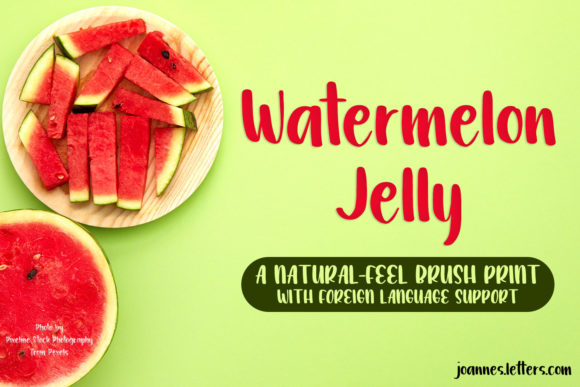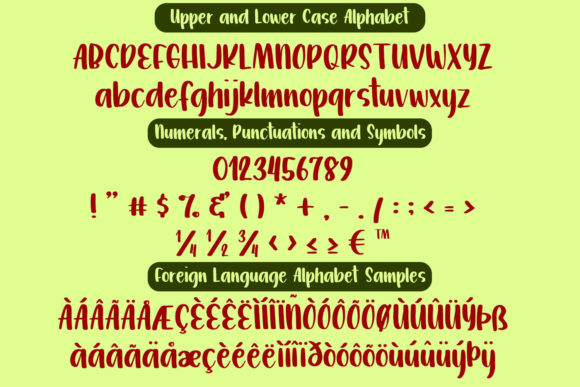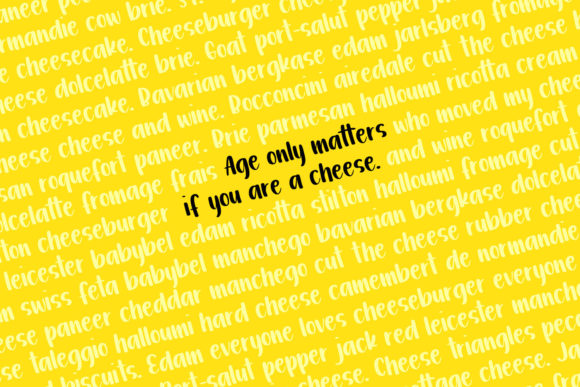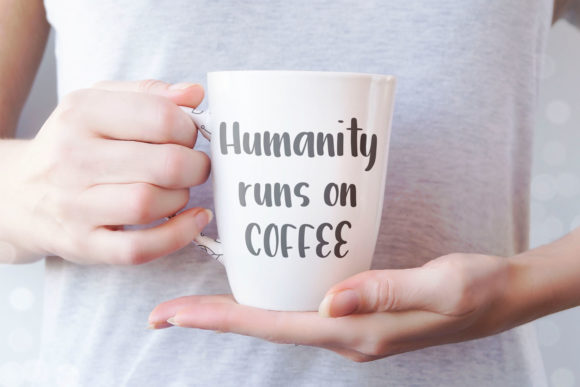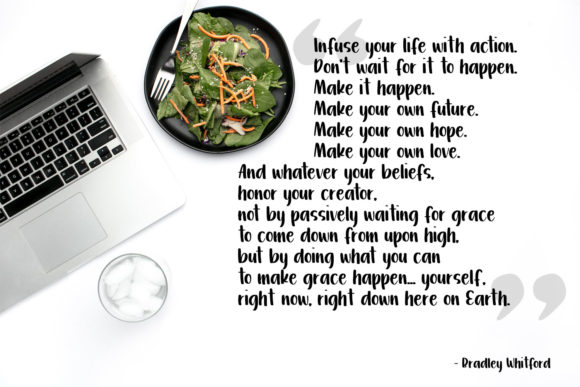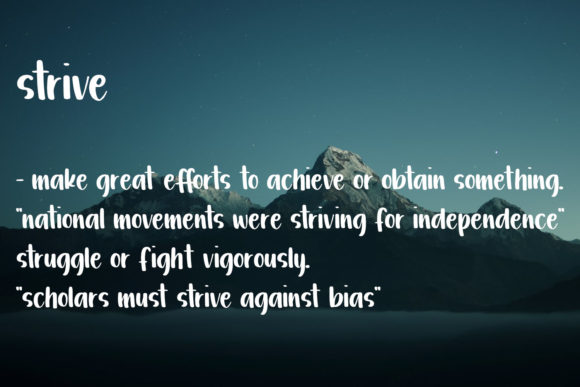
Watermelon Jelly Font
About Watermelon Jelly Font
Watermelon Jelly is a lovely and fun handwritten font. Use it for any design project that requires a personalized appearance!